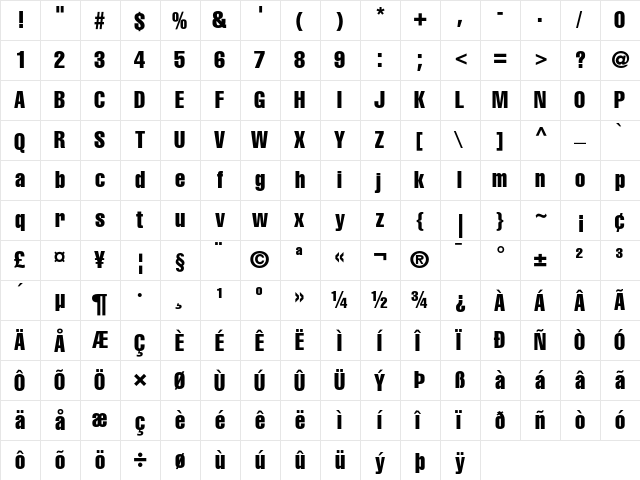
Helvetica Compressed
Design Context for Helvetica Typeface
Helvetica offers clean, dependable letterforms without strong stylistic allegiance, making it a practical choice for designers who need flexibility.
Pro Tip: Pair Helvetica with a font of contrasting weight or personality to build a more expressive typographic hierarchy.